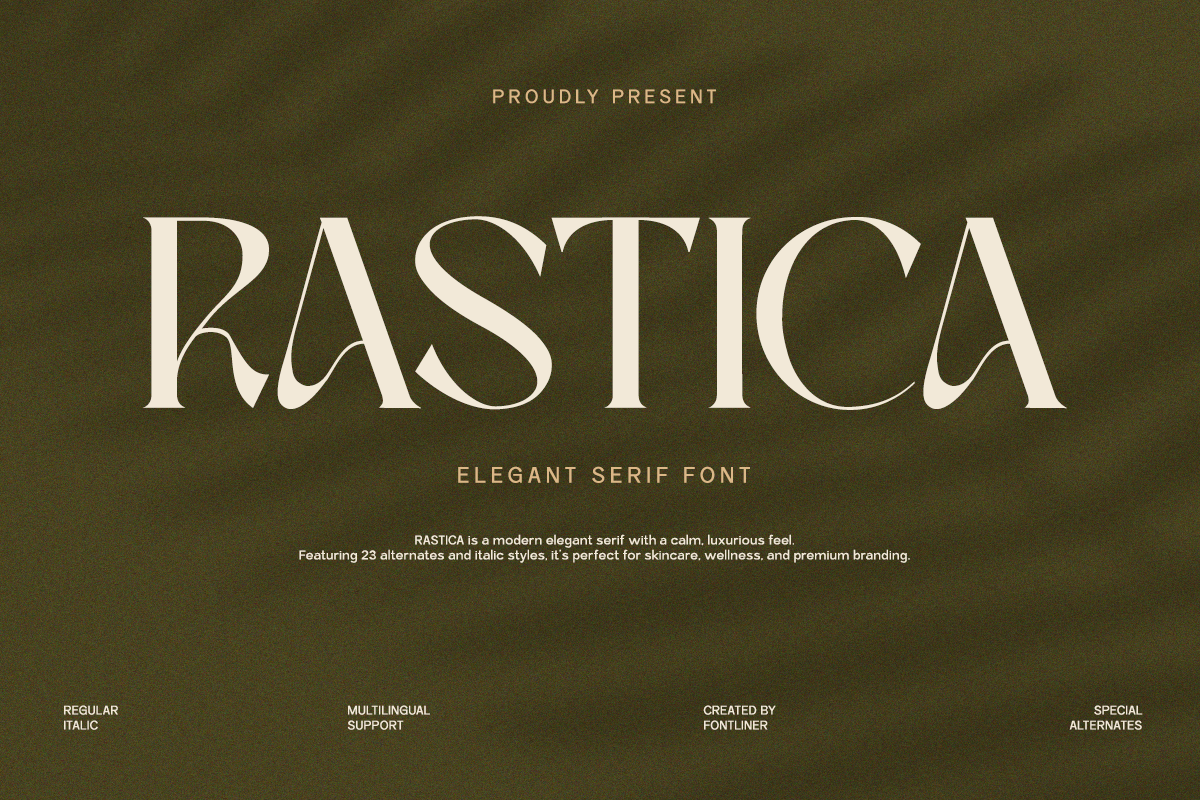
Elegant Serif - Rastica
Rastica is a modern elegant serif font crafted to evoke a calm, luxurious, and refined visual tone. With its graceful curves and distinctive finishing strokes, it brings a sense of softness while maintaining a strong editorial presence. The subtle contrast and organic flow make it perfect for designs that aim to feel both sophisticated and approachable.
Designed with versatility in mind, Rastica works beautifully across branding, editorial layouts, packaging, and lifestyle visuals. Its unique alternates add character and allow designers to create expressive, high-end typography compositions. Whether used in beauty branding, wellness products, or premium marketing materials, Rastica delivers a timeless and polished aesthetic.
Featuring multilingual support, italic styles, and a curated set of alternates, Rastica ensures flexibility for global and creative projects. It’s an ideal choice for designers seeking a serif typeface that blends elegance, personality, and modern refinement in one cohesive system.
- Stylistic alternates
- Uppercase, Lowercase & Ligatures
- Symbol, Number and Multilingual Support